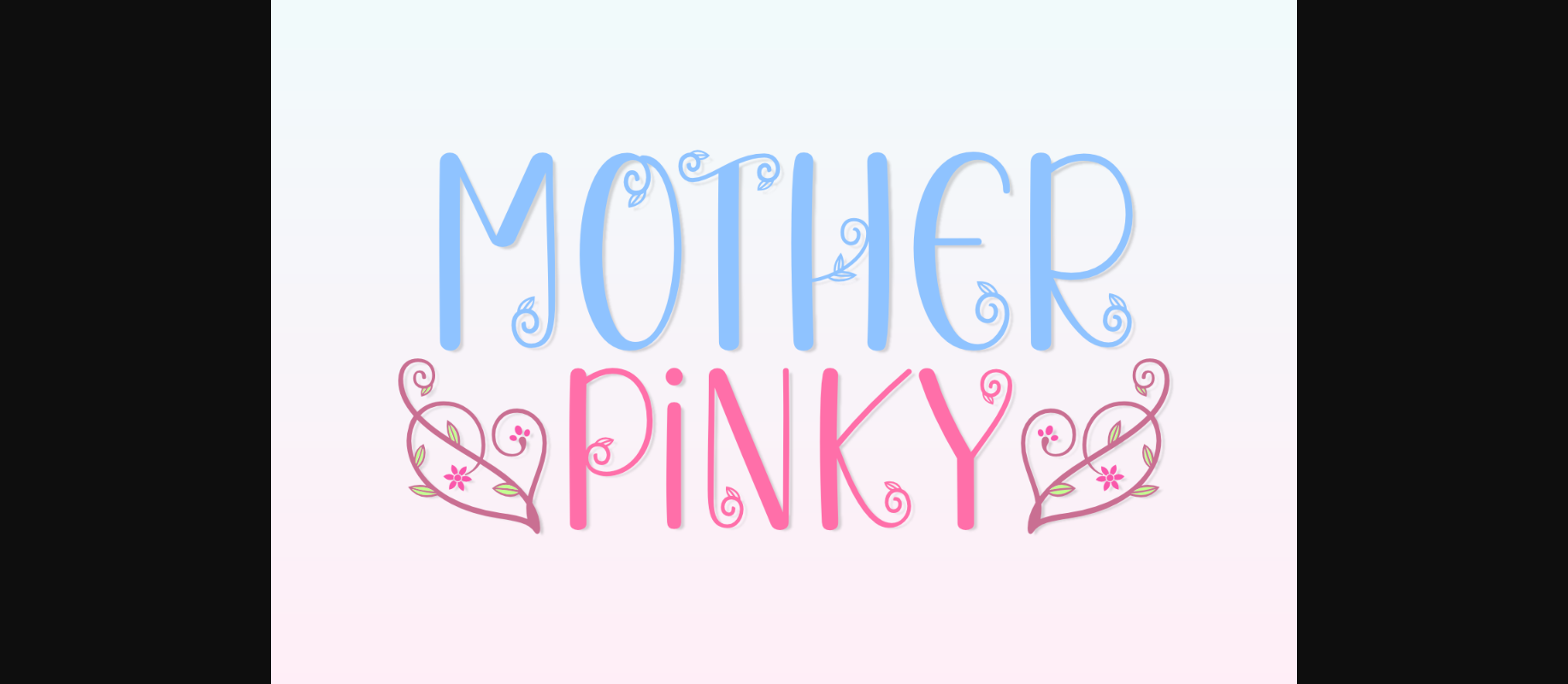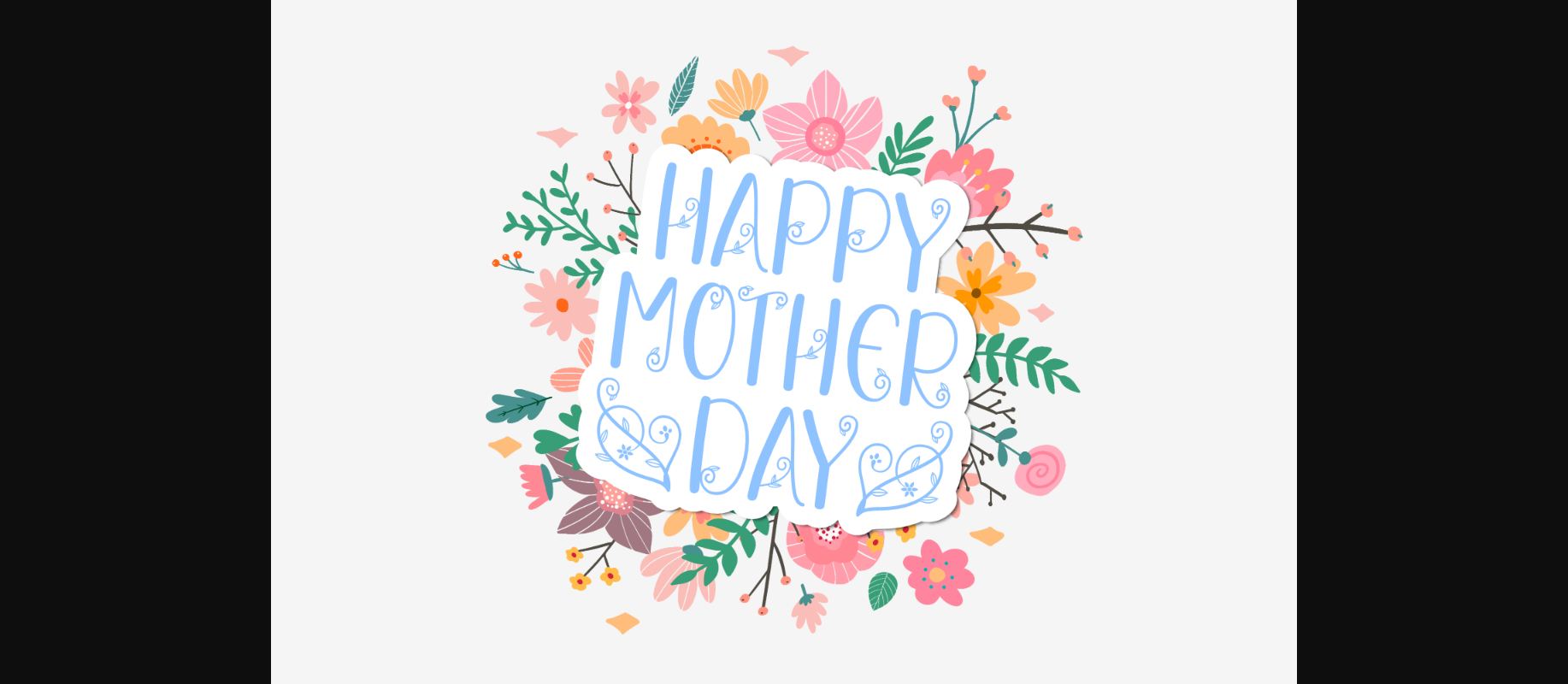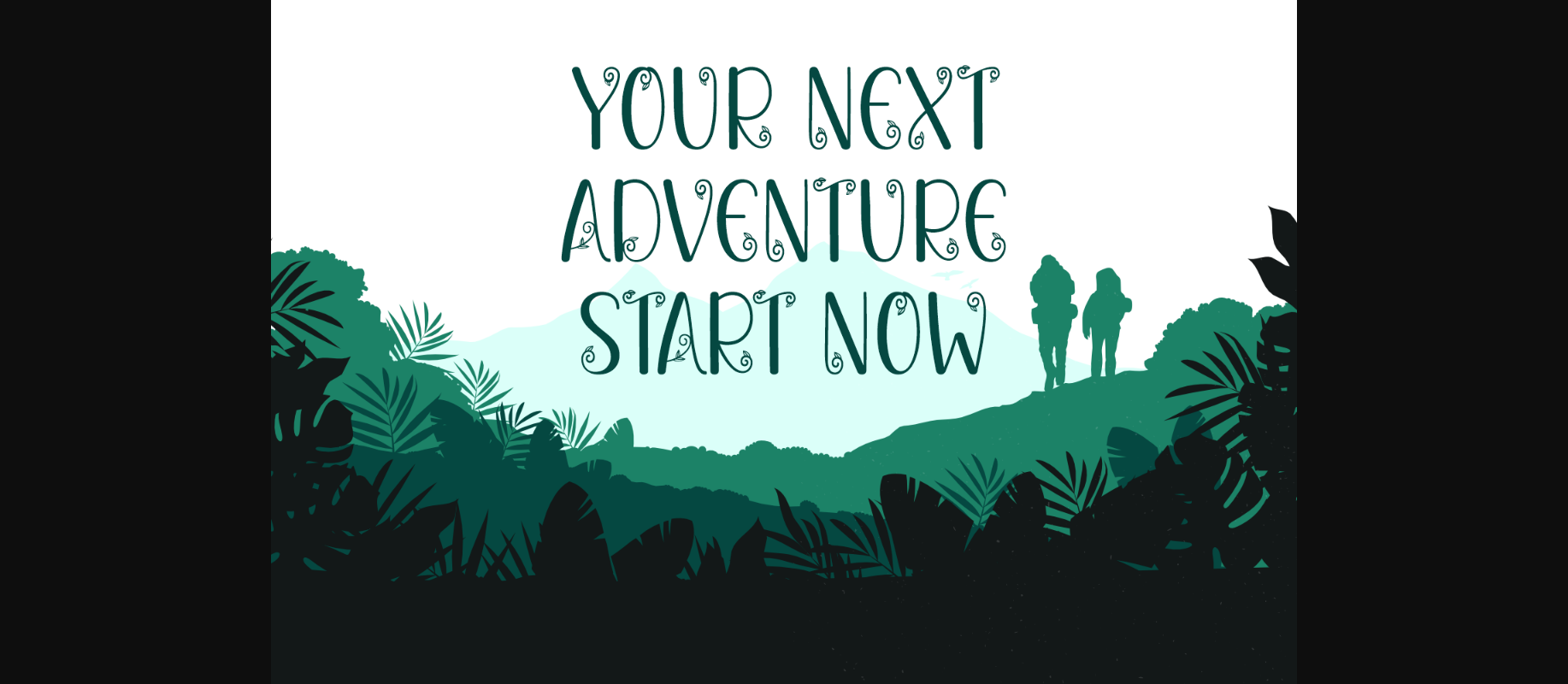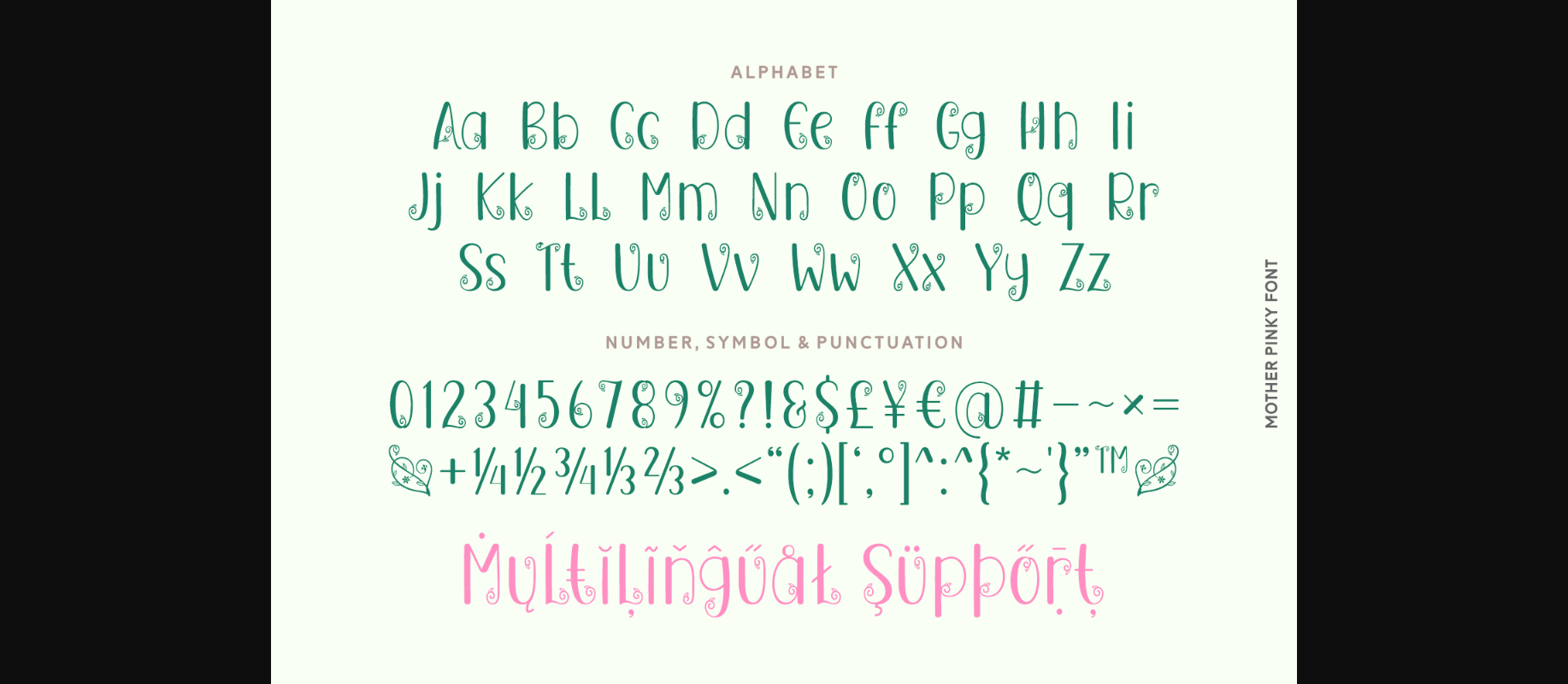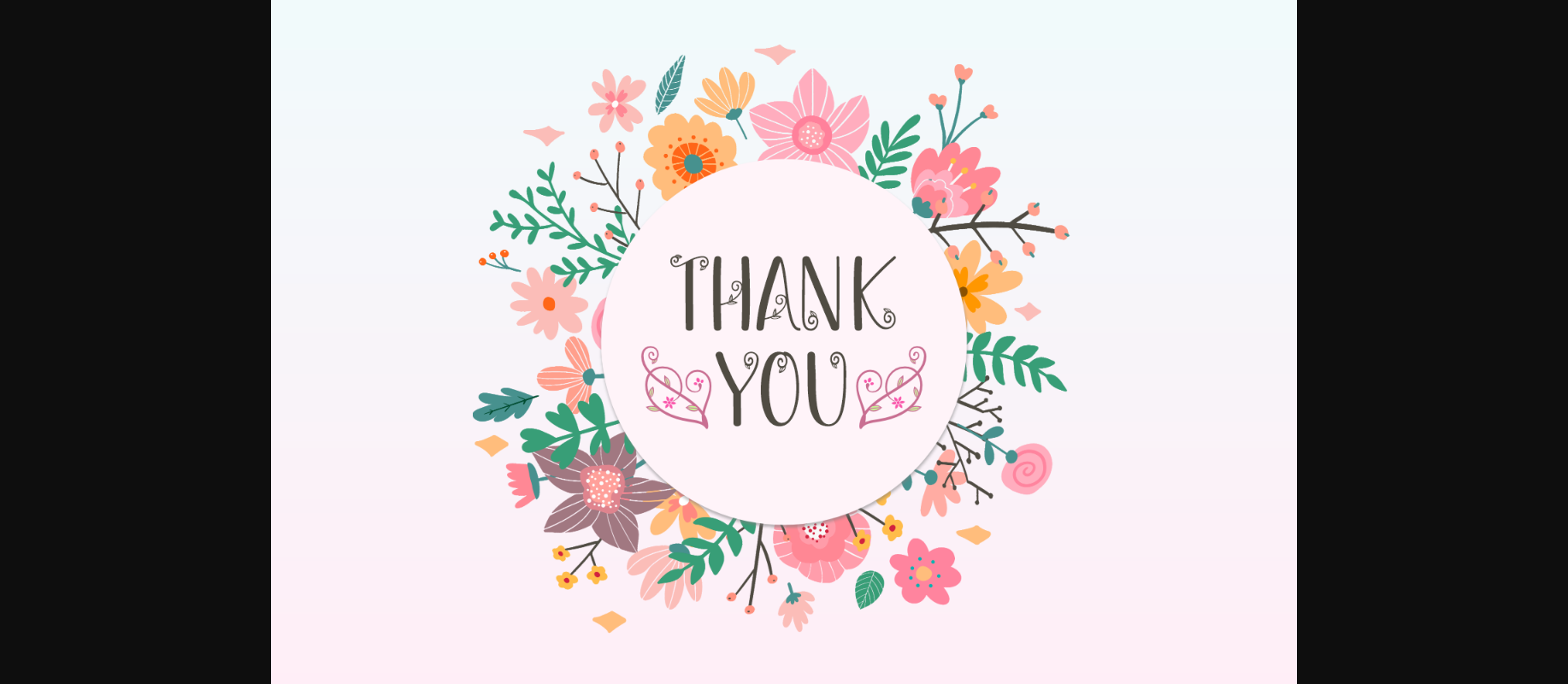
About Mother Pinky Font
Mother Pinky is a spring-themed decorative font. Inspired by flowers and nature, this creative font has beautifully detailed flowers and leaves on the character set. With swirls and curls, this decorative typeface is perfect for spring cards, birthday invitations, covers, posters, quotes, logos, branding, flower shops, wedding cards, etc.